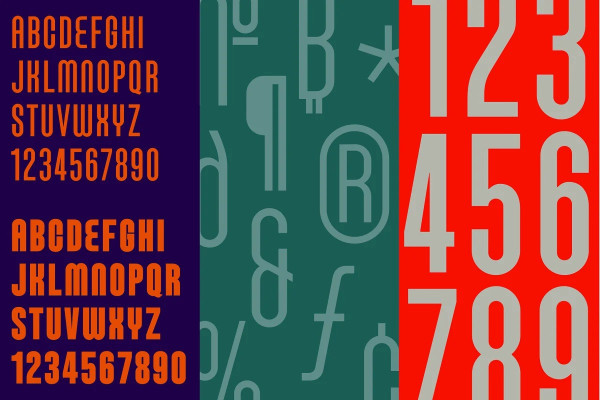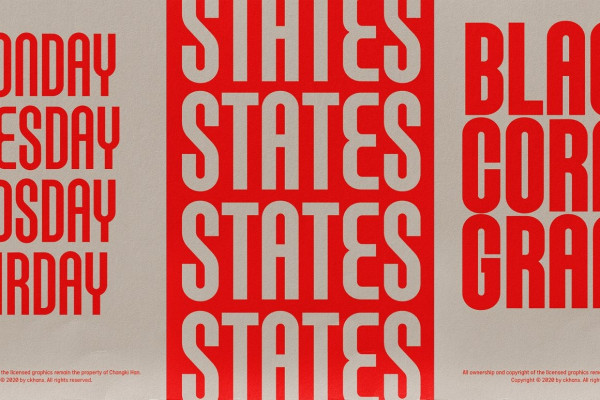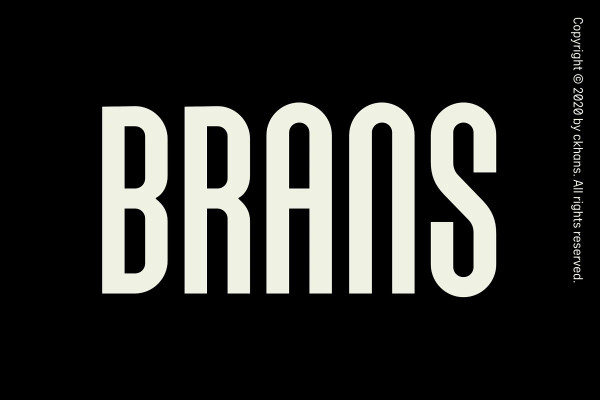
Brans Font
Brans Font family consists of 18 styles (9 weights, 9 Italics), in each of which there are more than 543+ glyphs. In the typeface, each weight includes extended language support, fractions, tabular figures, ligatures, arrows and more. Perfectly suited for graphic design and any display use.
Support for 28 languages.